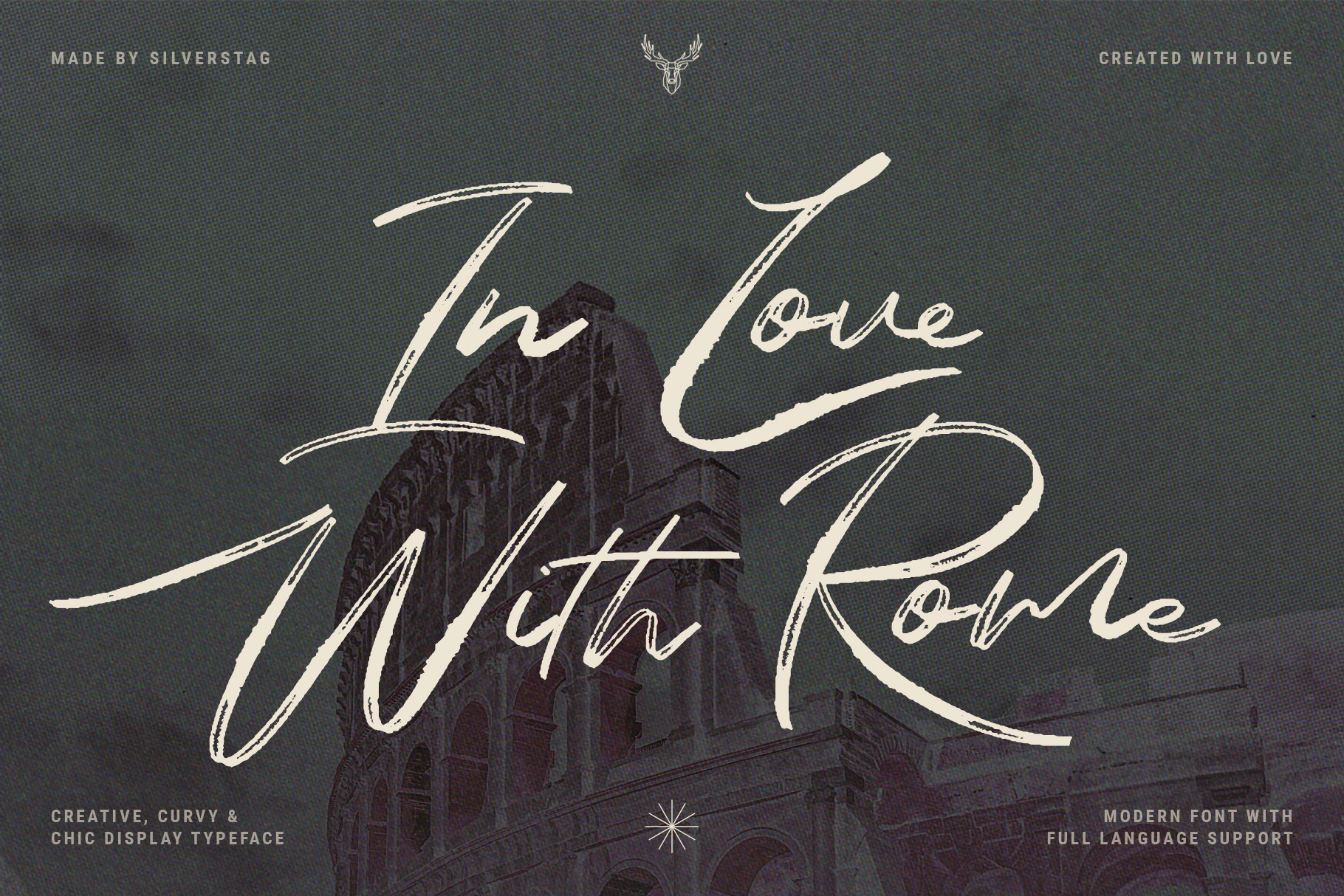
I am so happy to introduce my brand new handwritten font that exudes chic elegance like no other - meet In Love With Rome Script. Every single letter has been lovingly crafted by hand, resulting in a stunningly unique typeface that's perfect for anyone looking to add a touch of sophistication to their designs. With 274 alternate letters and ligatures, you'll have all the tools you need to create truly one-of-a-kind pieces.
But what sets this font apart isn't just its beauty - it's also incredibly versatile. Whether you're working on a wedding invitation, a branding project, or simply adding some flair to your social media posts, this font is the perfect choice. It's feminine, cool, and it strikes the perfect balance between modern and classic. So if you're looking for a font that's as beautiful as it is functional, look no further!
- Over 274 Ligatures and Alternates